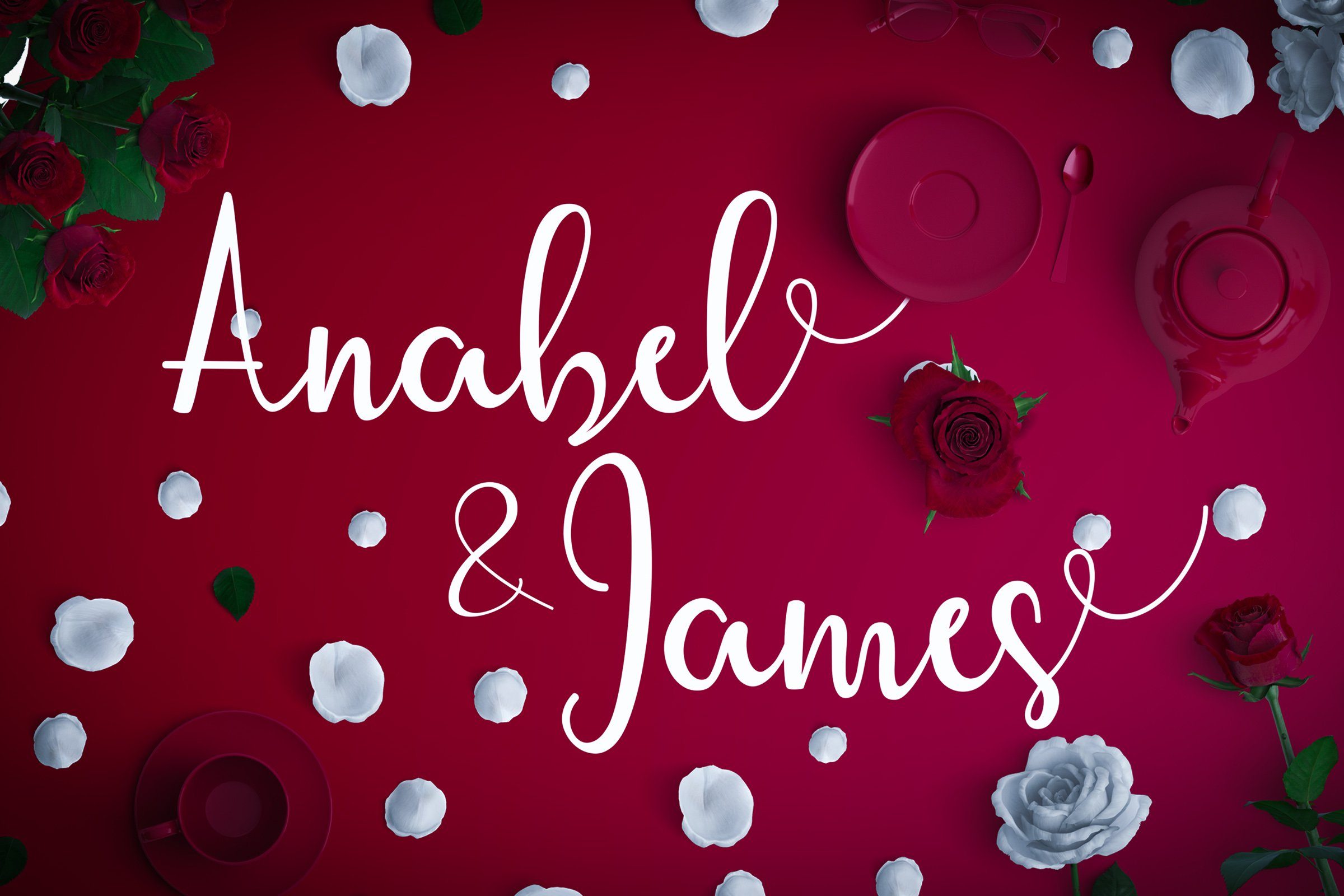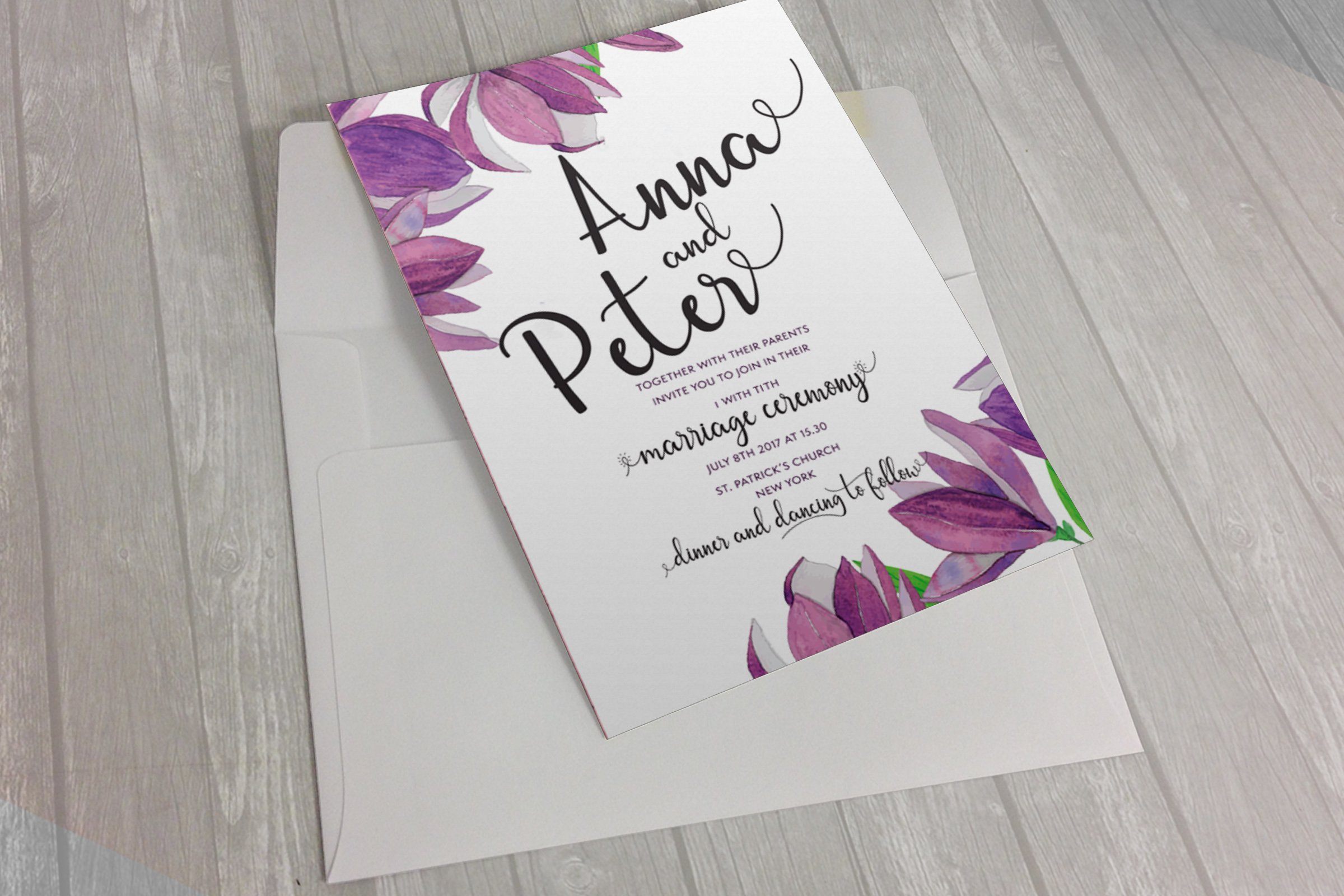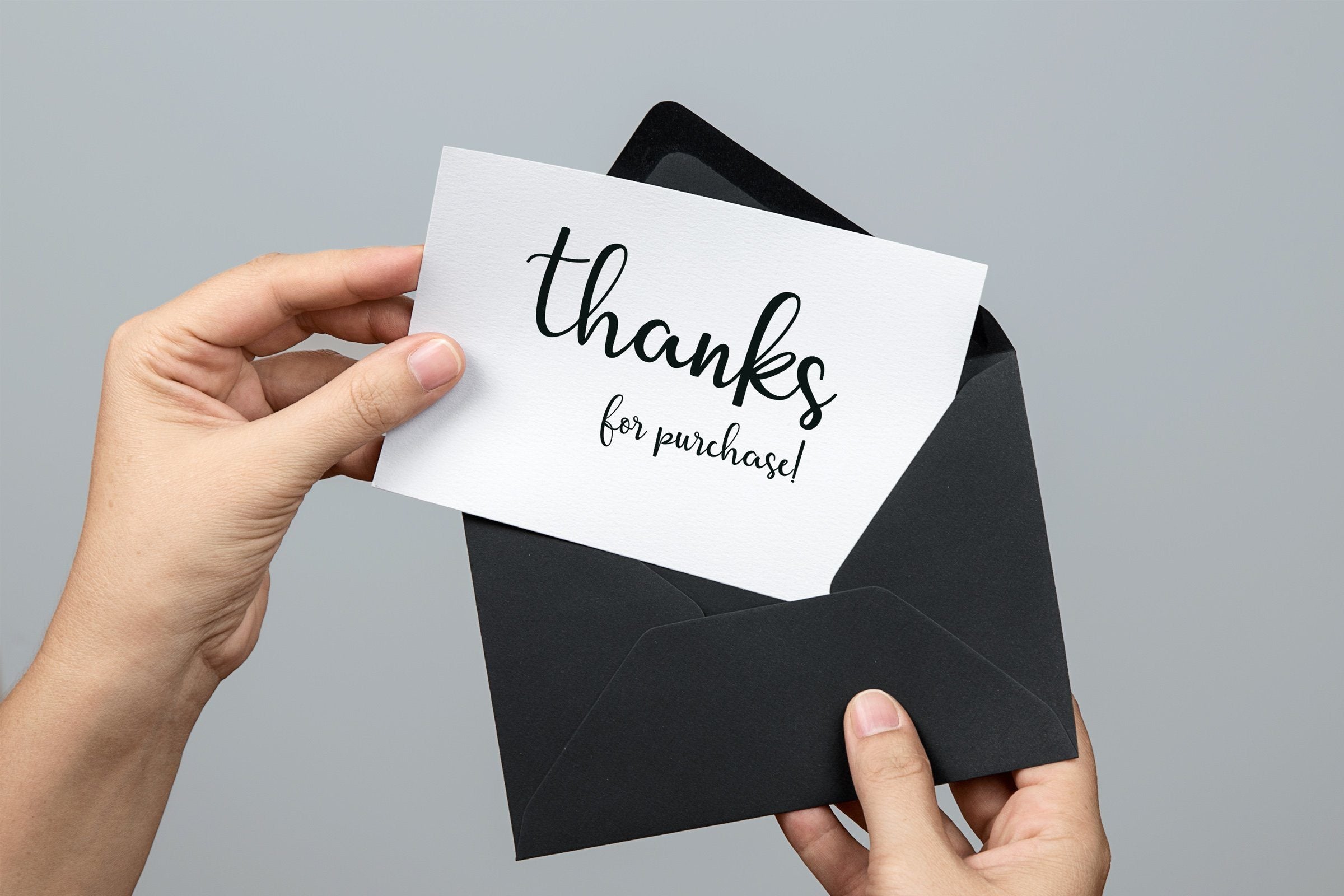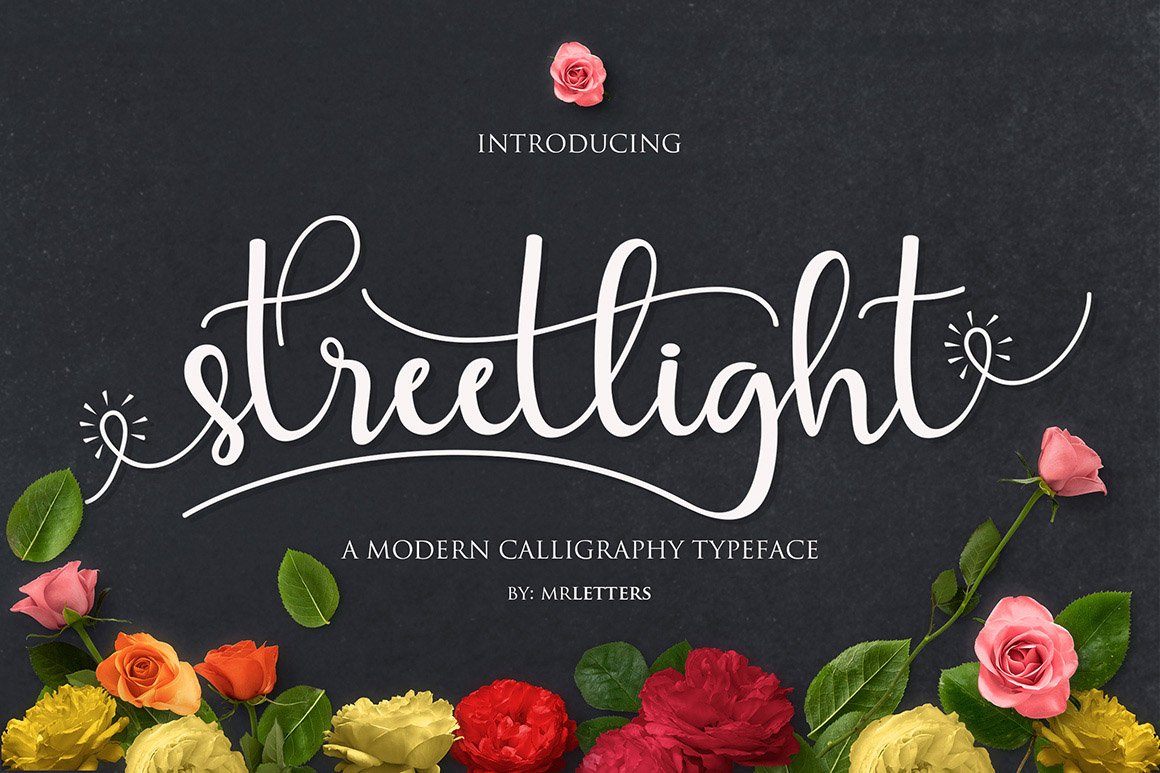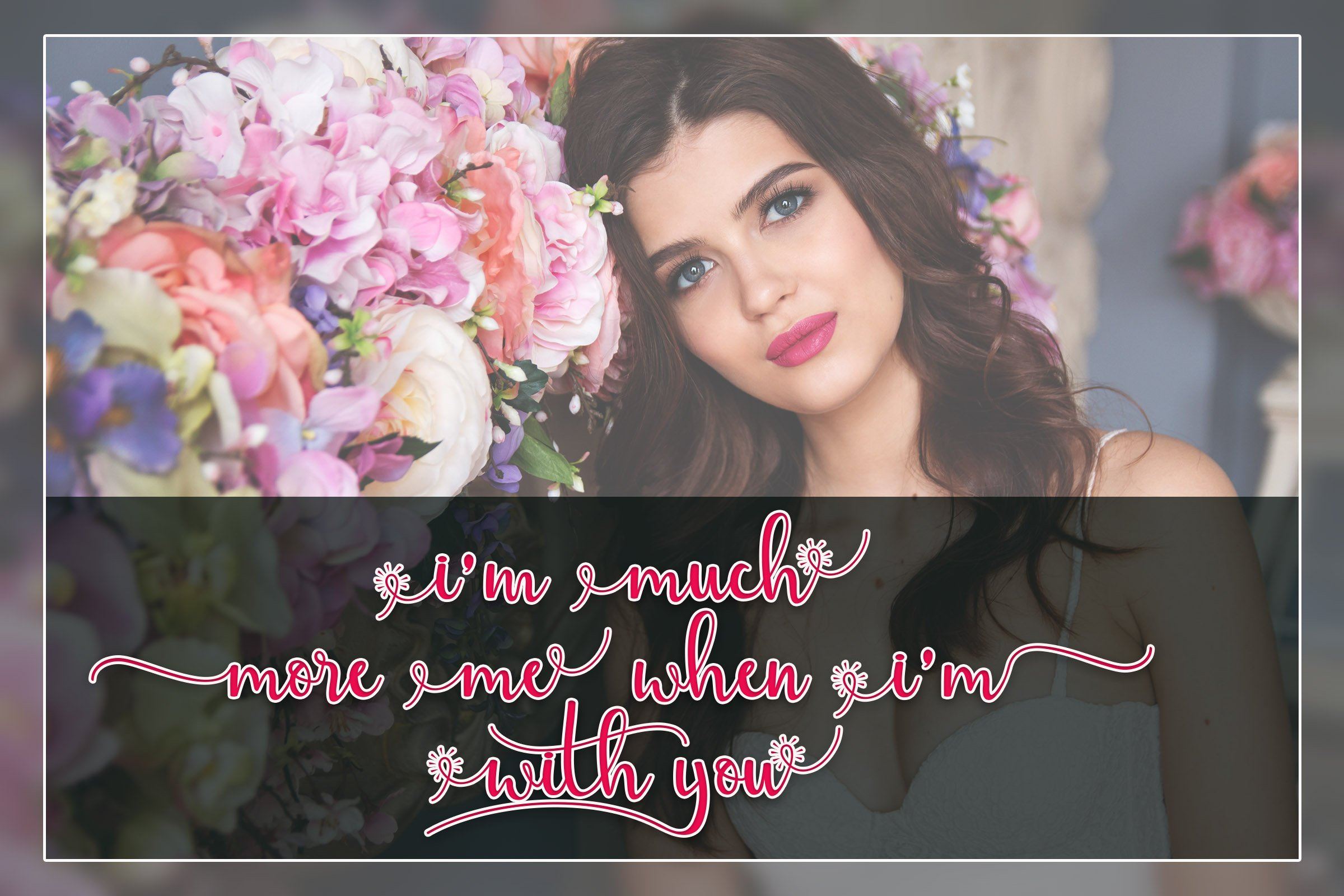
About Streetlight Script
Introducing Streetlight Script a new fresh & modern script with a handmade calligraphy style, decorative characters and a dancing baseline! So beautiful on invitation like greeting cards, branding materials, business cards, quotes, posters, and more!! Streetlight Script come with 459 glyphs. The alternative characters were divided into several Open Type features such as Swash, Stylistic Sets, Stylistic Alternates, Contextual Alternates. The Open Type features can be accessed by using Open Type savvy programs such as Adobe Illustrator, Adobe InDesign, Adobe Photoshop Corel Draw X version, And Microsoft Word. And this Font has given PUA unicode (specially coded fonts). so that all the alternate characters can easily be accessed in full by a craftsman or designer. Streetlight Script :Uppercase & Lowercase International Languange & Symbols Support Punctuation & Number PUA Unicode Range Standard Stylistic Alternates Stylistic Set 1-13 Character Variant Contextual. The ZIP file are include the following : Streetlight Script.OTF Streetlight Script.TTF Streetlight Script Italic.OTF Streetlight Script Bold.TTF Streetlight Script.Web Font (eot, svg, woff, woff2) If you don’t have a program that supports OpenType features such as Adobe Illustrator and CorelDraw X Versions, you can access all the alternate glyphs using Font Book (Mac) or Character Map (Windows). If you have any question, don’t hesitate to contact me by email  Thanks and happy designing 🙂 Thank You for purchase! Introducing Streetlight Script a new fresh & modern script with a handmade calligraphy style, decorative characters and a dancing baseline! So beautiful on invitation like greeting cards, branding materials, business cards, quotes, posters, and more!! Streetlight Script come with 459 glyphs. The alternative characters were divided into several Open Type features such as Swash, Stylistic Sets, Stylistic Alternates, Contextual Alternates. The Open Type features can be accessed by using Open Type savvy programs such as Adobe Illustrator, Adobe InDesign, Adobe Photoshop Corel Draw X version, And Microsoft Word. And this Font has given PUA unicode (specially coded fonts). so that all the alternate characters can easily be accessed in full by a craftsman or designer. Streetlight Script :Uppercase & Lowercase International Languange & Symbols Support Punctuation & Number PUA Unicode Range Standard Stylistic Alternates Stylistic Set 1-13 Character Variant Contextual. The ZIP file are include the following : Streetlight Script.OTF Streetlight Script.TTF Streetlight Script Italic.OTF Streetlight Script Bold.TTF Streetlight Script.Web Font (eot, svg, woff, woff2) If you don’t have a program that supports OpenType features such as Adobe Illustrator and CorelDraw X Versions, you can access all the alternate glyphs using Font Book (Mac) or Character Map (Windows). If you have any question, don’t hesitate to contact me by email  Thanks and happy designing 🙂 Thank You for purchase!